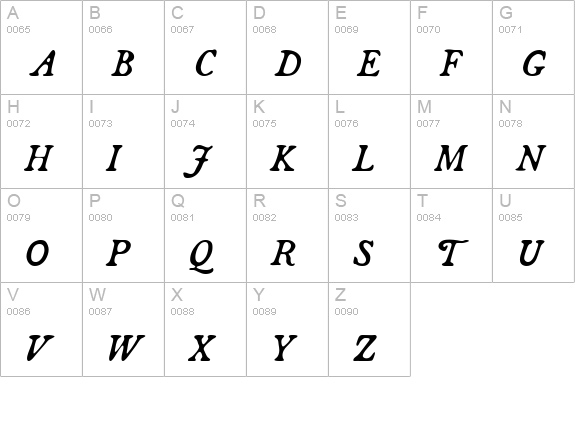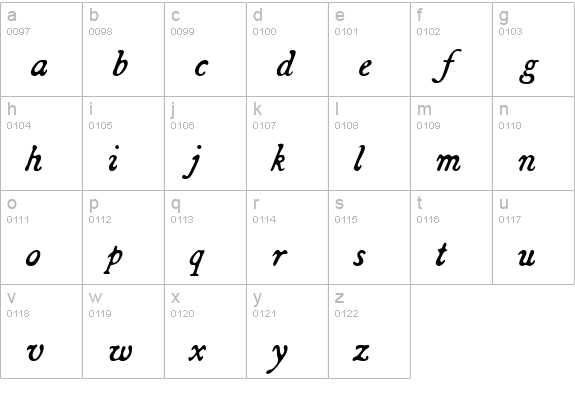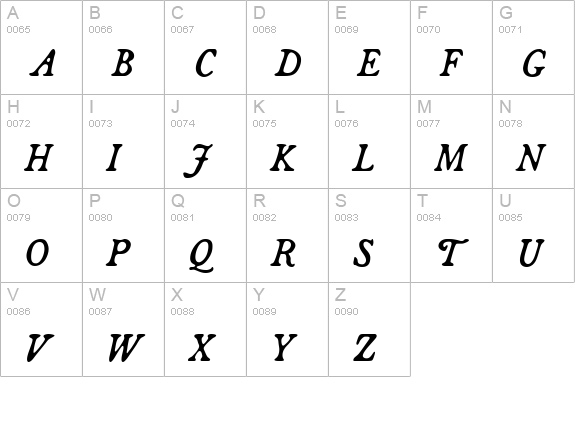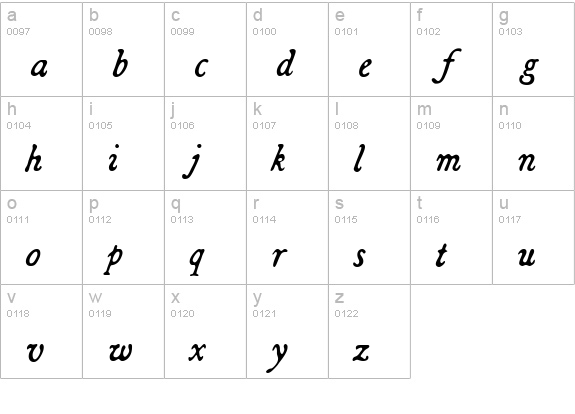
Broadsheet-Italic is a distinctive, italic variant in the Broadsheet typeface family \xE2\x80\x94 well suited to design and typography projects.
Broadsheet-Italic font exudes elegance and sophistication with its stylish and refined design. The italicized characters add a touch of flair and sophistication, making it perfect for adding a touch of class to any project. The sleek and modern appearance of Broadsheet-Italic font makes it ideal for use in editorial designs, branding projects, and luxury products. What's more, this exquisite font is available for free download at FontsMarket.com. Take advantage of this amazing offer and elevate your designs with the timeless beauty of Broadsheet-Italic font. Download now and let your creativity soar with this stunning typeface.